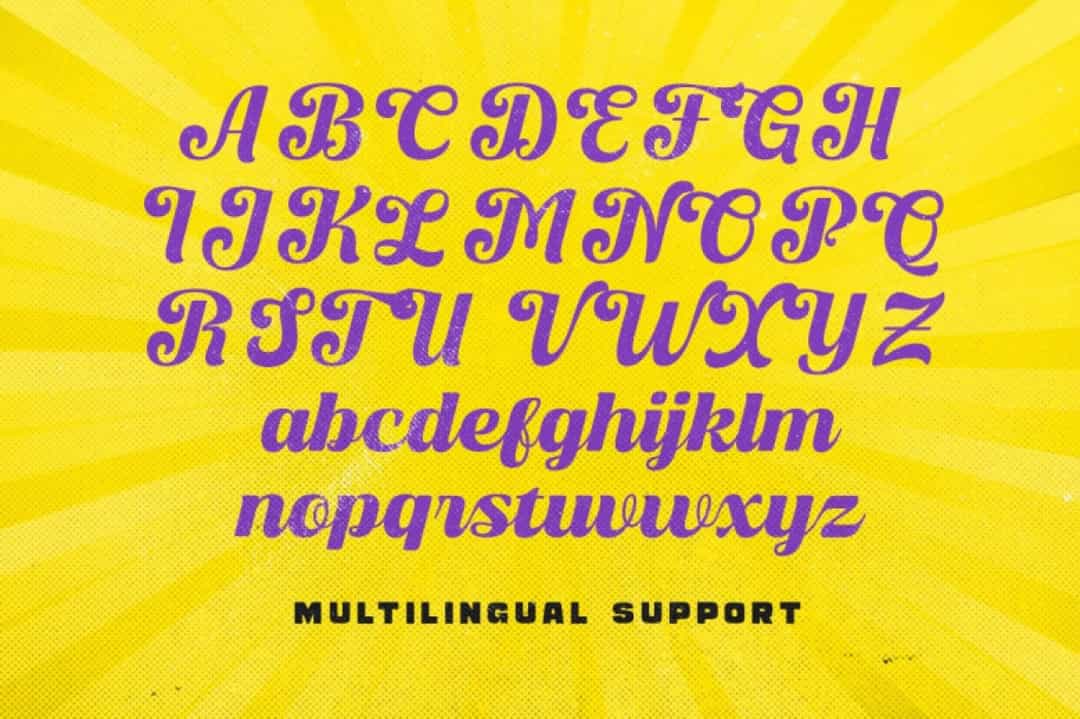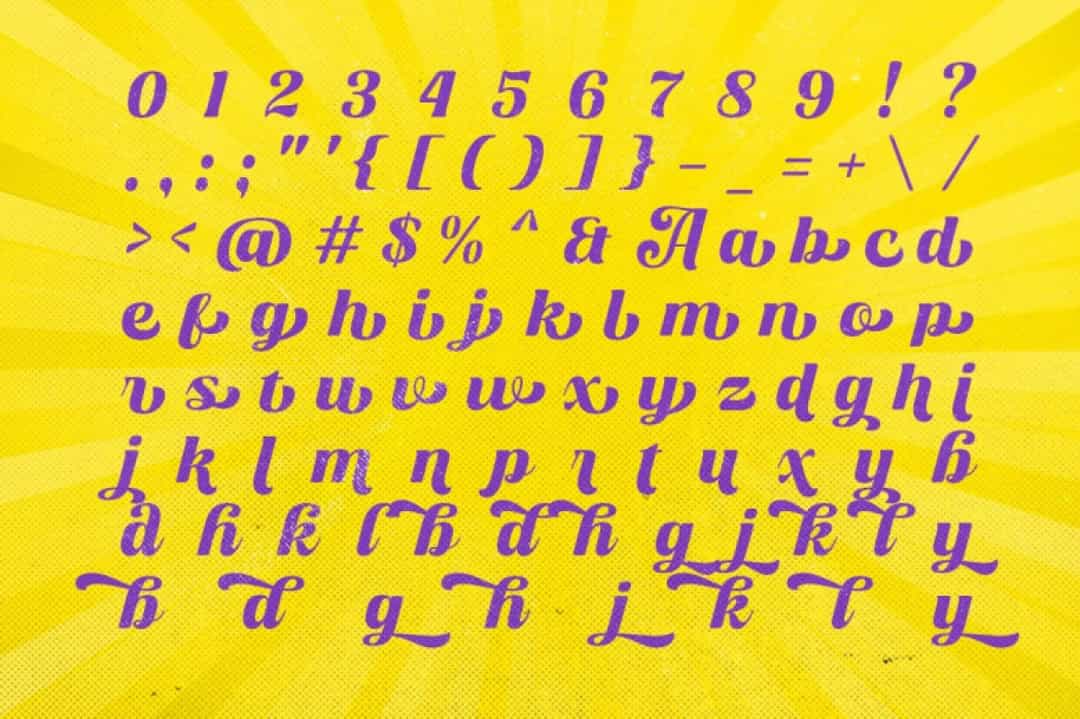
Gilded Majestic a high contrast graphic display script font features some striking designs that will stand out. Suitable for headlines, logos and signage. Also ideal for labels, invitations and logos in formal settings like magazines and books as well as greeting or wedding cards packaging, fashion, makeup stationery books labels or any form of advertisement.